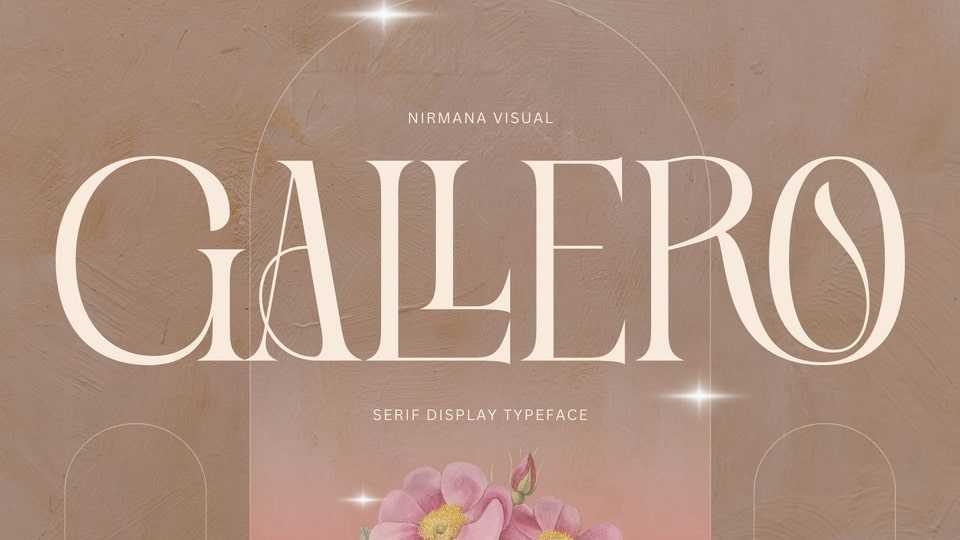
Download Gallero Vintage font, a contemporary serif typeface inspired by Art Nouveau era. Gallero Vintage offers beautiful typographic harmony for a diversity of design projects,